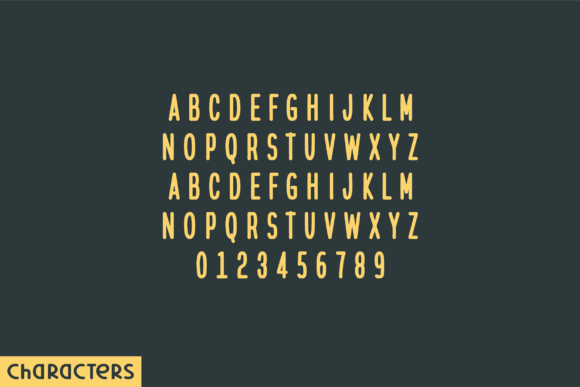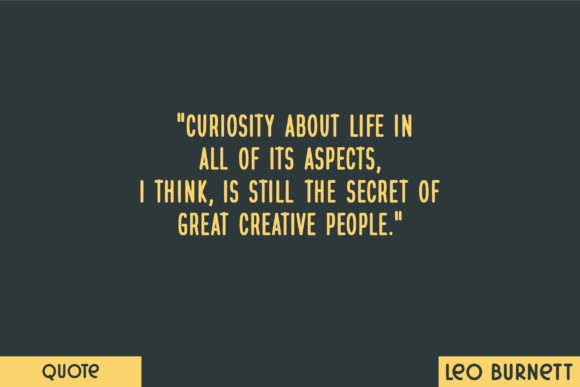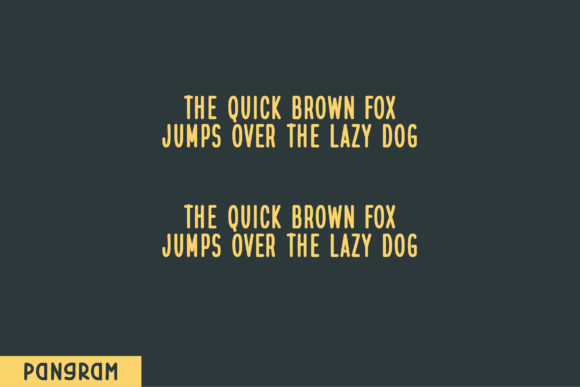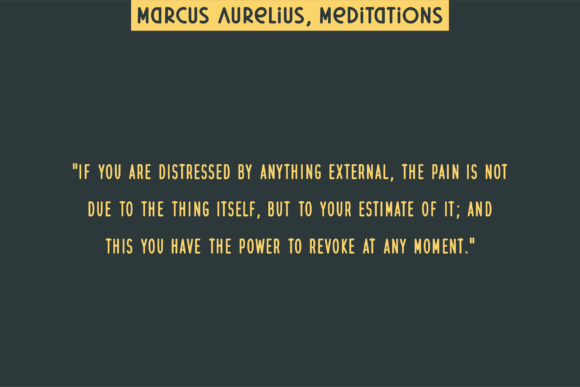
Introducing Elowapple Font: A Unique Handwritten Style for Creative Designs
Are you tired of using the same old fonts for your designs? Look no further! Elowapple Font is a natural handwritten font that is sure to add a touch of personality to your creations. What makes Elowapple truly unique is its distinctive approach to character indentation, where not a single node has been altered. This attention to detail results in a font that is both interesting and one-of-a-kind.
The Characteristics of Elowapple Font
Elowapple Font boasts a natural, handwritten aesthetic that is perfect for a variety of design applications. Its unique feature lies in the preservation of each character’s indentation, giving it an organic feel that stands out from more uniform fonts. This characteristic makes Elowapple particularly suited for:
- Quotes: Add a personal touch to inspirational or meaningful quotes with Elowapple’s distinctive style.
- Notes: Whether you’re designing stationery, planners, or note cards, Elowapple brings a warm, inviting feel.
- T-Shirts and Apparel: Stand out with unique tees and apparel designs that showcase your personality or brand.
- Product Design: From packaging to branding, Elowapple can add a handwritten charm that connects with customers.
Why Designers and Crafters Love Elowapple Font
For designers and crafters, finding the right font can be a challenge. Elowapple offers several advantages:
- Uniqueness: In a sea of similar fonts, Elowapple’s distinctive style ensures your designs stand out.
- Versatility: Its natural, approachable look makes it suitable for a wide range of projects.
- Emotional Connection: The handwritten nature of Elowapple can help create an emotional connection with your audience, making your designs more relatable and engaging.
Tips for Using Elowapple Font Effectively
To get the most out of Elowapple Font, consider the following tips:
- Mix and Match: Combine Elowapple with other fonts for contrast and visual interest. Its handwritten nature pairs well with clean, sans-serif fonts.
- Play with Sizes: Use varying font sizes to create hierarchy and emphasis in your designs.
- Color It Right: Choose colors that complement the natural, organic feel of Elowapple. Earth tones, pastels, and rich jewel tones work particularly well.
Elowapple Font is more than just a typeface; it’s a way to add personality, warmth, and uniqueness to your designs. Whether you’re a professional designer or a crafter, Elowapple offers the opportunity to create something truly special. So why settle for ordinary when you can make your designs extraordinary with Elowapple Font?